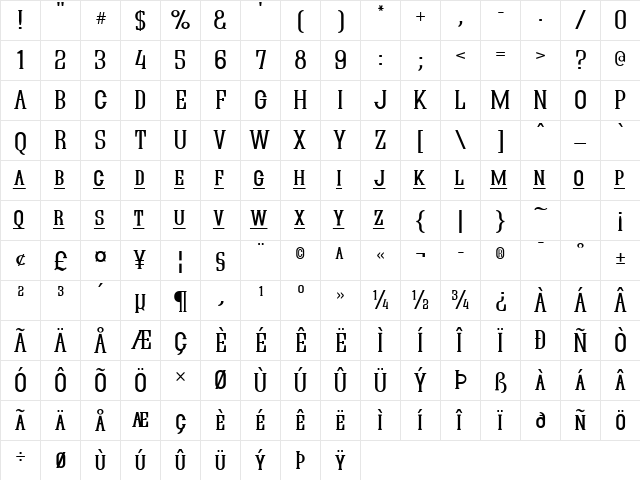
Quastic Kaps Line Regular Font Preview
Quastic Kaps Line Regular
Quastic Kaps Line Regular Font Details
| Foundry | Graham Meade,,, |
Design Context for Quastic Kaps Line Typeface
Quastic Kaps Line takes a measured approach to typography — its balanced proportions and neutral character make it a reliable workhorse for both digital and print work.